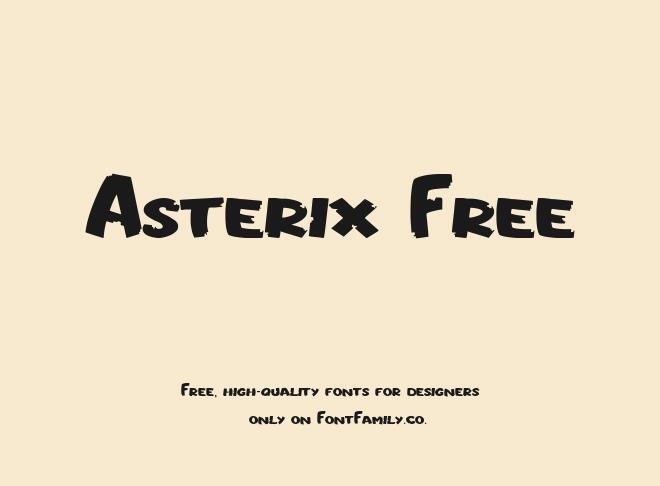
Asterix Free Font
The Asterix Free Font is a vibrant, playful typeface inspired by the classic comic series 'Asterix'. With its rounded, comic-style characters, it brilliantly captures the spirit of the iconic series. It's perfect for creating engaging headlines, playful packaging, or exciting event posters. The font's rounded edges give it a friendly, approachable feel, while its bold weight ensures it stands out. Comparable to fonts like 'Comic Sans' and 'Bangers', Asterix Free Font offers a more unique and stylized alternative. It is free to download and designed to make your projects stand out. Embrace the fun, adventurous spirit of Asterix Free Font in your design!